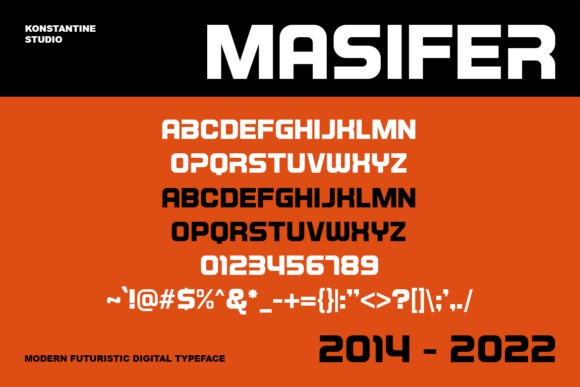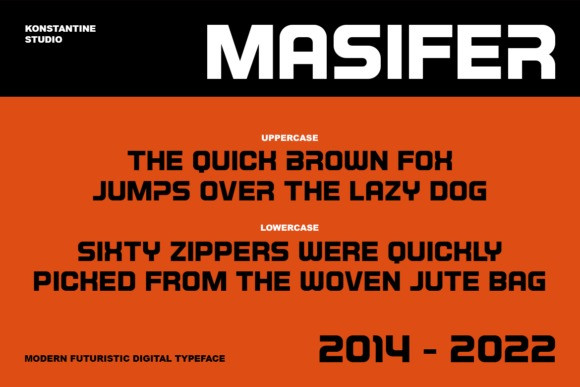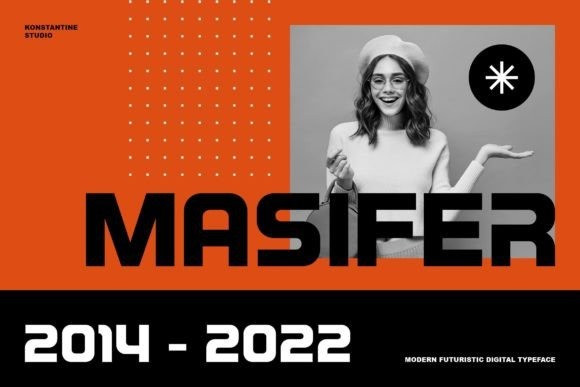
Masifer Font
Masifer is a futuristic sans serif font with a touch of technology and a sporty look. Perfectly fit for your sports logo, game design, automotive industry branding, poster, fast vibes, sporty look, fashion streetwear, you name it.